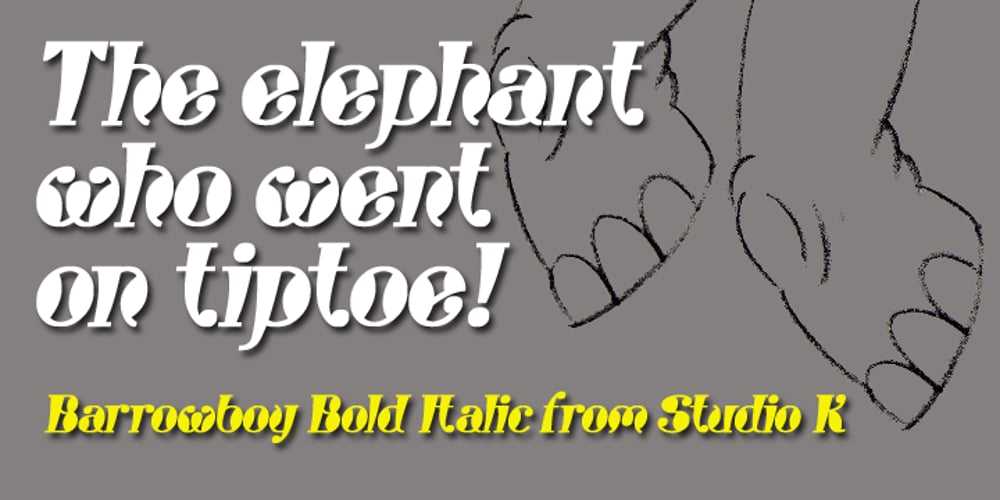
Barrowboy
Barrowboy font
Barrowboy Font Family was designed by Keith Tricker and published by Studio K. Barrowboy contains 4 styles and family package options. Barrowboy was inspired by the handwritten sales tickets that are still to be found on market stalls and fruit barrows, and are as familiar as the street cries that accompany them. The signage is mostly confined to numerals, so translating it into a font is pretty much a work of imagination. See also my other fun fonts Bebopalula, Calypso and Pier Arcade.